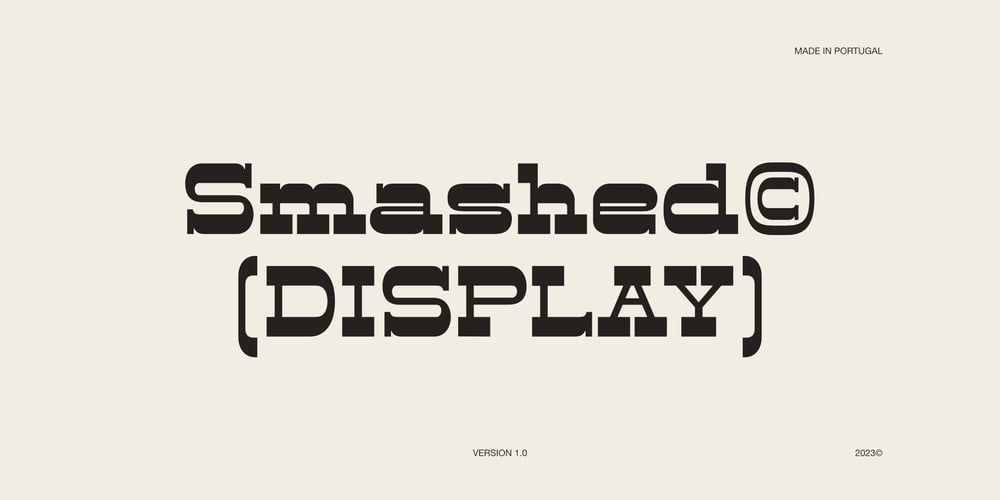
Smashed Display Font Family was designed by Raquel Fernandes and published by Raquel Fernandes. Smashed Display contains 1 styles and family package options. Smashed Typeface is a reversed-contrast, slab serif, display font. Was inspired by the old west days that we can often see in printing, circus posters and wanted notices in western movies, even tho the style was really used in many parts of the world during that period. This style is sometimes called as “circus letter” too. Was designed to have a modern look, using straighter lines and an extended style, can be used on various situations like posters, logos for restaurants, alternative business like an old washing station (as you can see on the next images), music bands etc. I believe that is a promising typography that can be used by various designers in a lot of diverse project. It counts with 226 multi language characters, one weight on version 1.0, on a next version I hope to take this project to another level, creating a variable typeface from condensed to really extended weights. It would complete this typography and eliminate the limits of use.